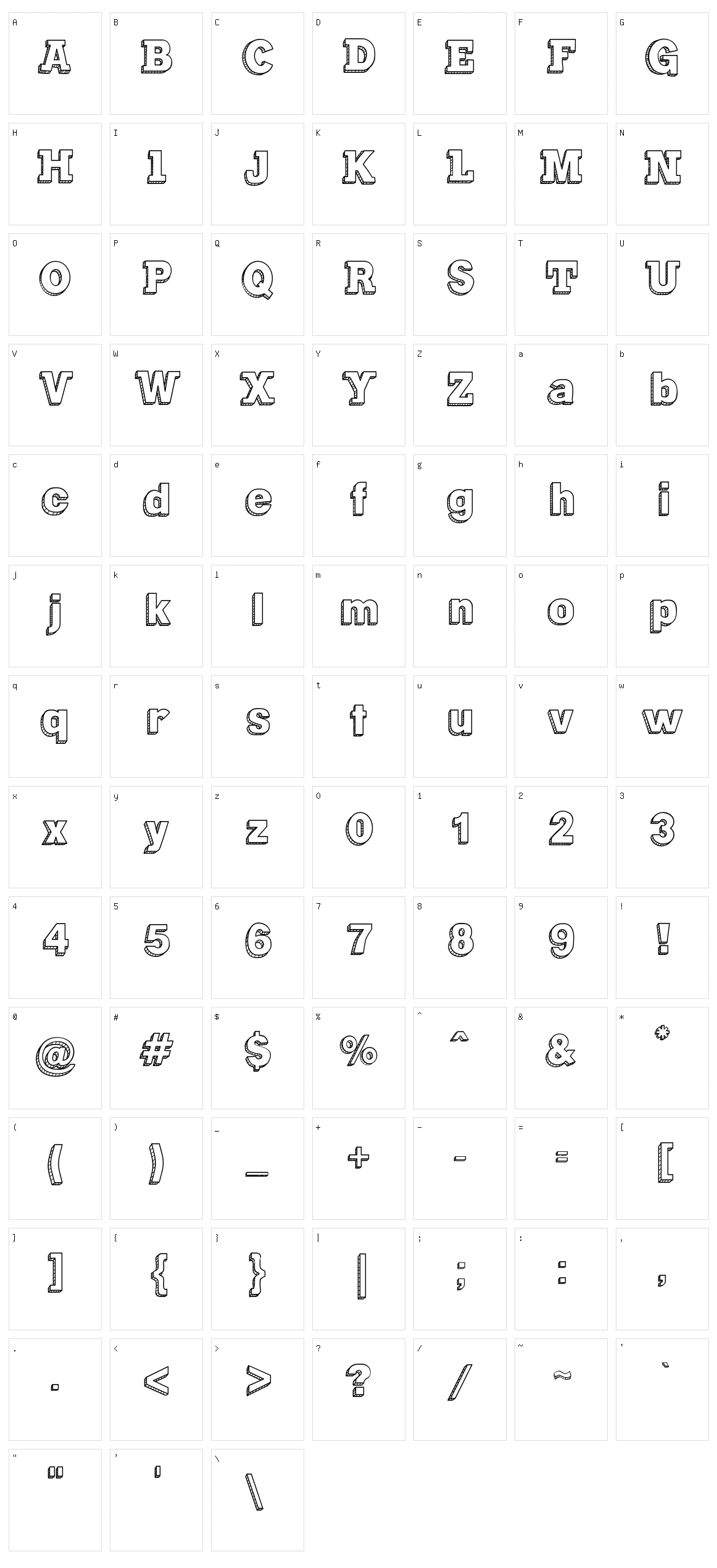
The free font Gregory Packaging is carefully designed by Galdino Otten Fonts, showcasing a thoughtful balance of creativity and usability and falls under the Cartoon font style. When you download the ZIP file, it contains only 354.74 KB of font files, making it lightweight and quick to download. Please review the license details below to understand permitted usage and distribution rights. If license information is not available, we recommend using this font for personal projects only or contacting the author directly for commercial usage permissions.